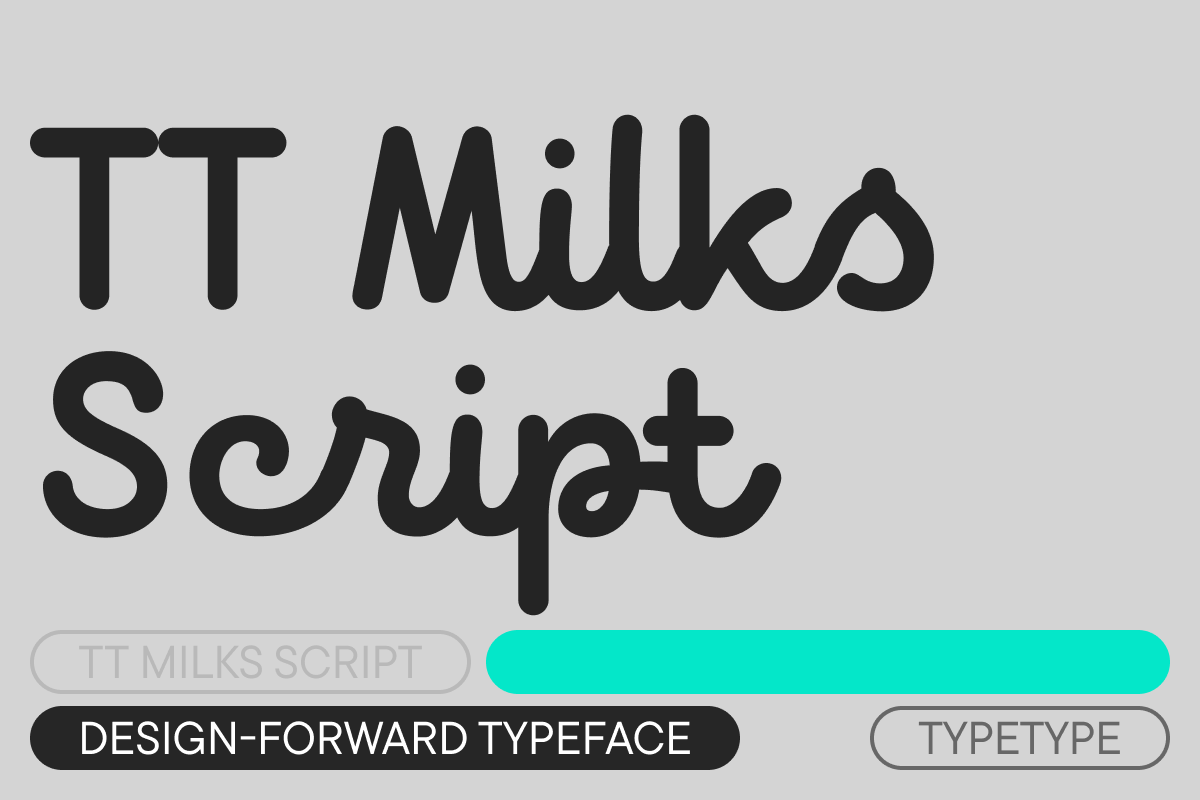
TT Milks Script ExtraBold
Initially the idea for TT Milks was to create a collection of fonts to be used for packaging and branding of dairy products. While working on the initial idea, we’ve tested all possible glyph variations, which resulted in a large decorative designer font family. Thanks to a variety of elements, TT Milks collection has exceeded its initial idea and now offers an unlimited application range.